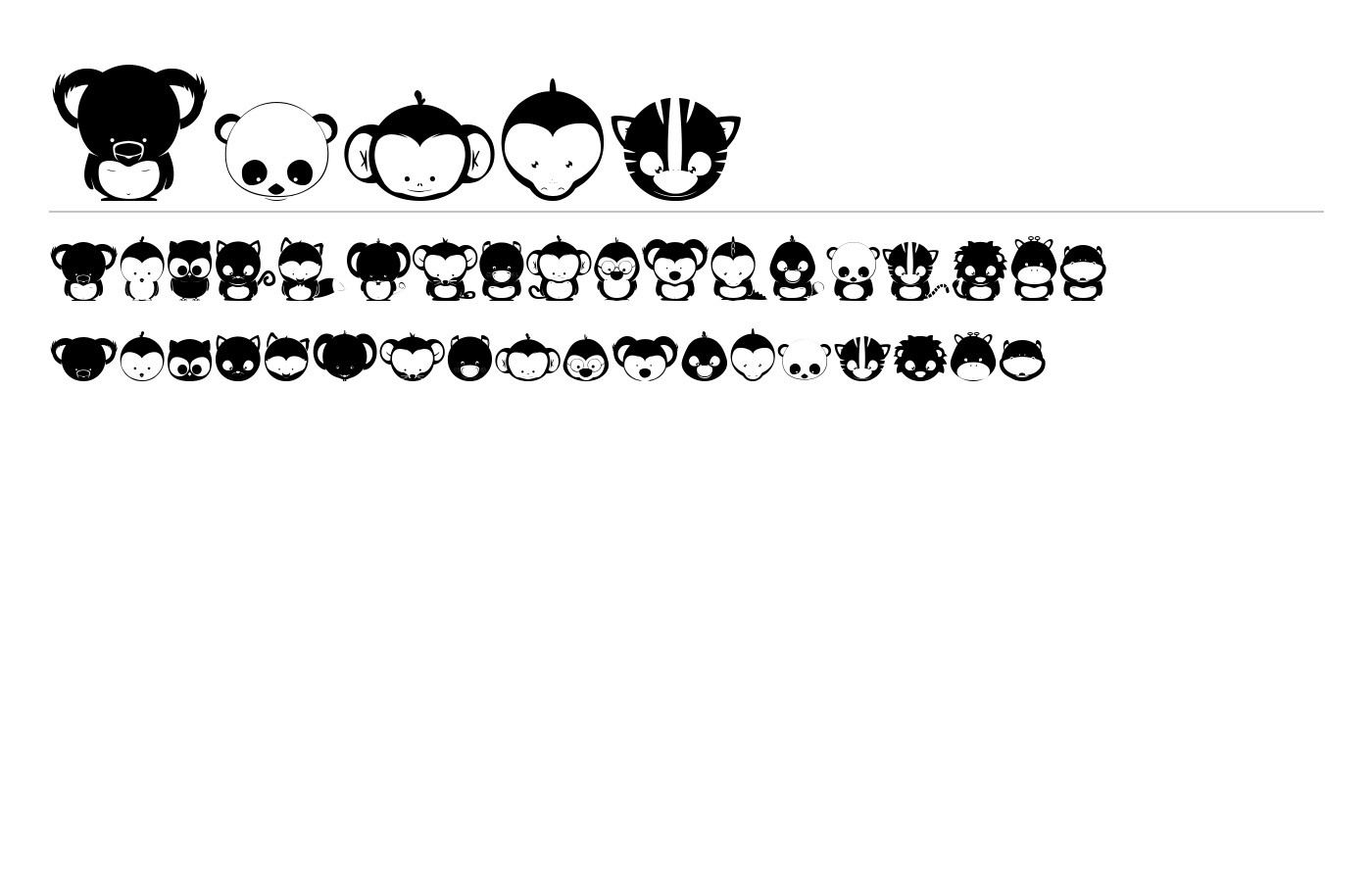
Animox is a playful decorative font featuring charming animal faces that bring a fun and whimsical feel to any project. Its bold, rounded shapes and high-contrast black-and-white design work perfectly for children's branding, playful logos, and creative packaging that seeks to engage and delight a young or lighthearted audience. This font excels in designs where personality and cuteness are key, making it ideal for casual, friendly, and imaginative environments.
Animox Font